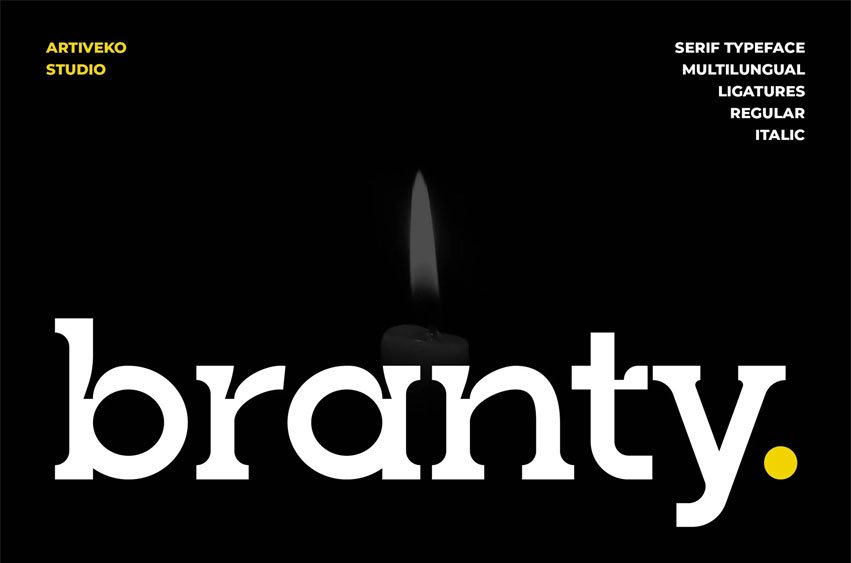
Branty Font is perfect for posters, social media posts, branding, personal projects, etc.
Every letter has a unique and beautiful touch, which will make your design come alive!